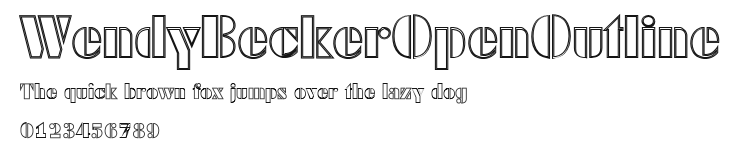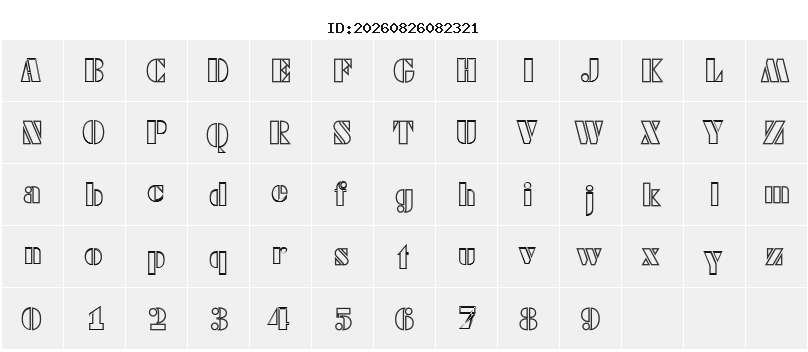
WendyBeckerOpenOutline Preview
• Font Name: WendyBeckerOpenOutline
• Full Font Name: WendyBeckerOpenOutline-Regular
About WendyBeckerOpenOutline.ttf
WendyBeckerOpenOutline.ttf is a modern, elegant sans-serif font designed for ultimate readability and visual harmony. Perfect for branding, headlines, web design, and print materials.